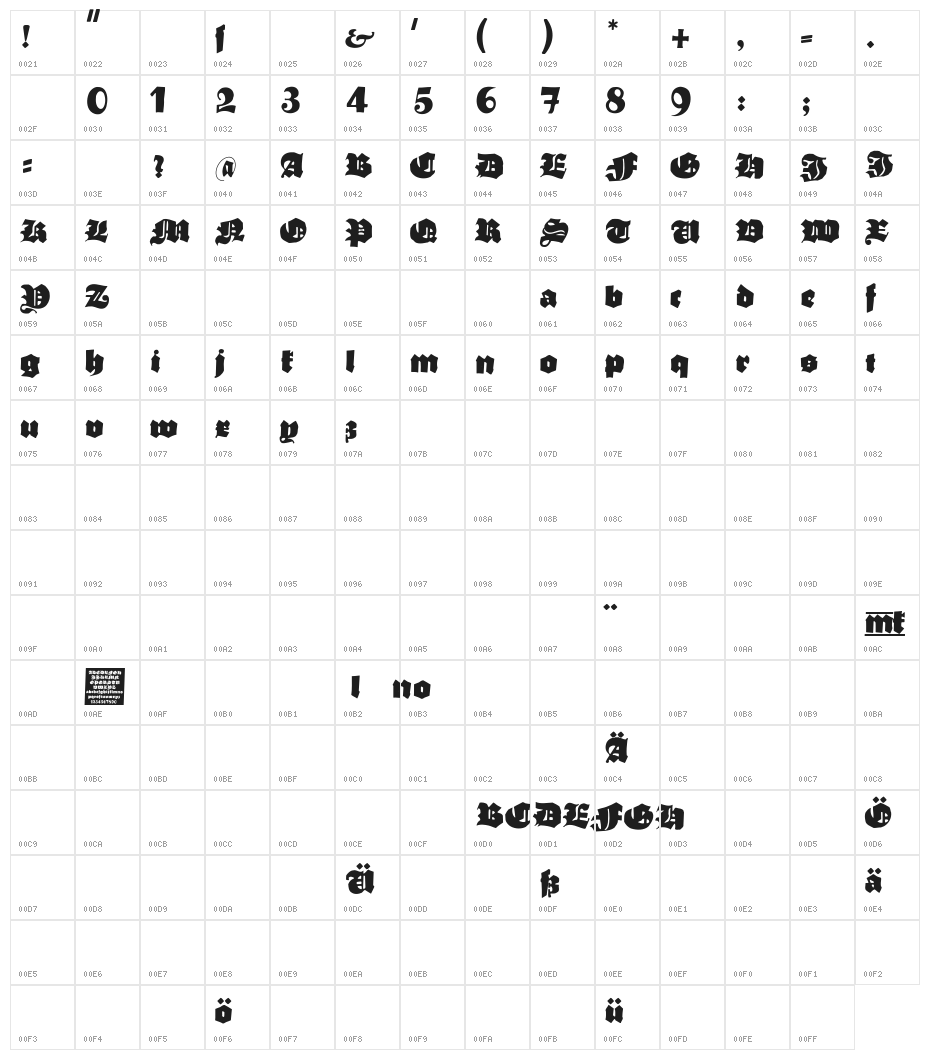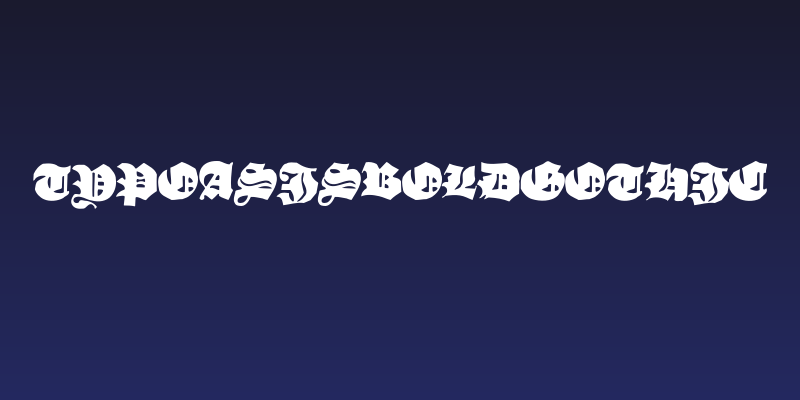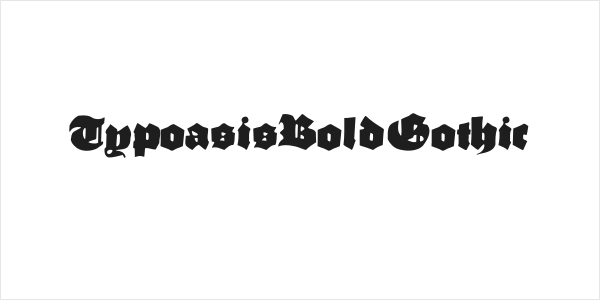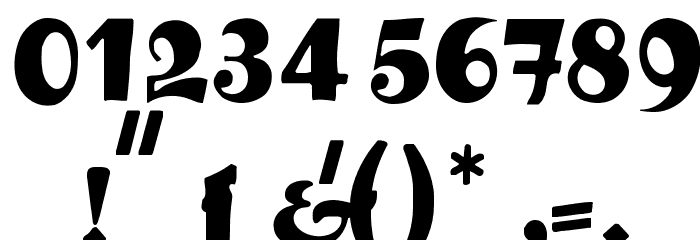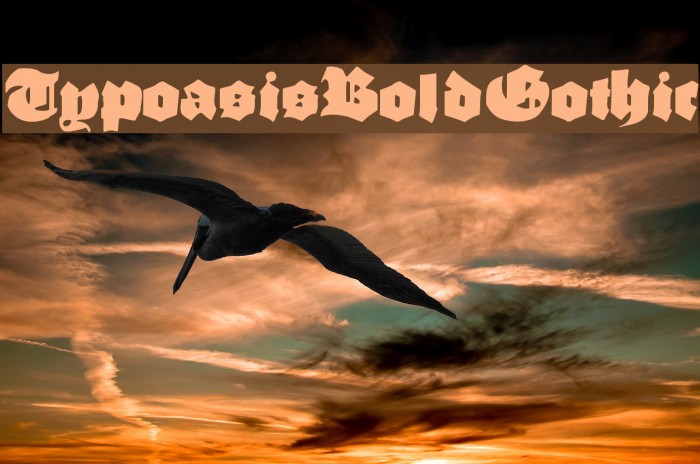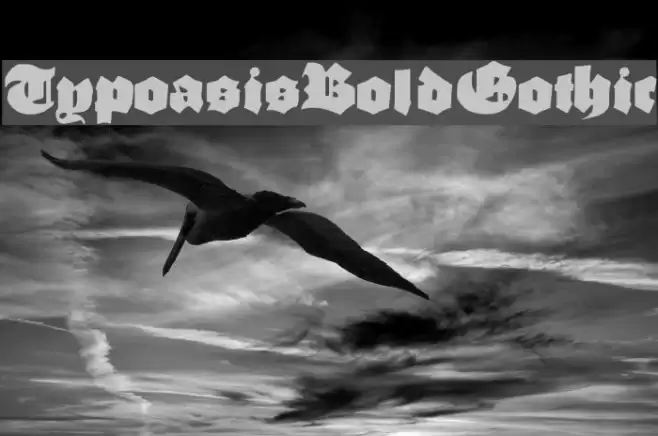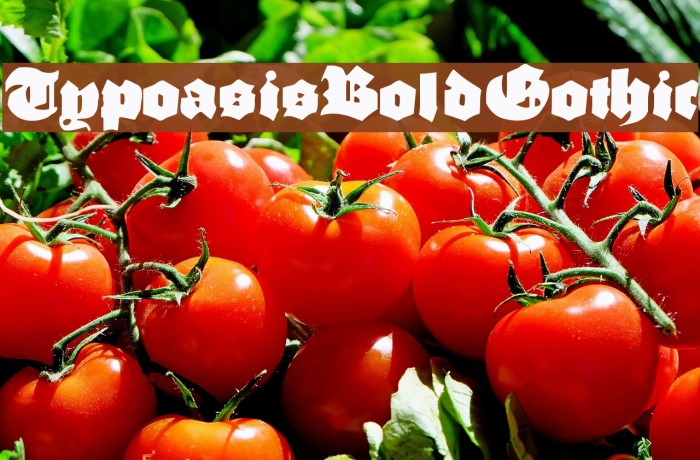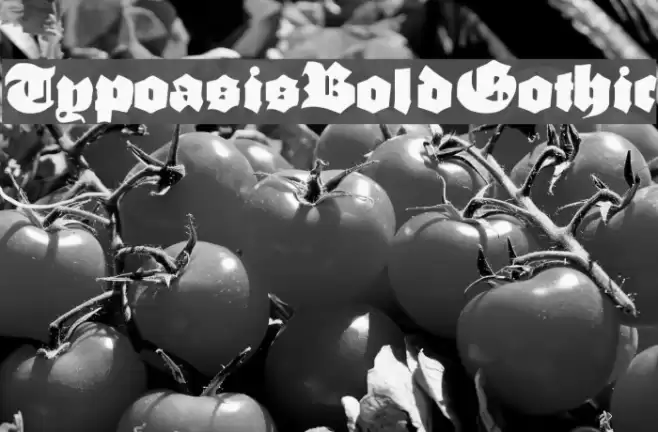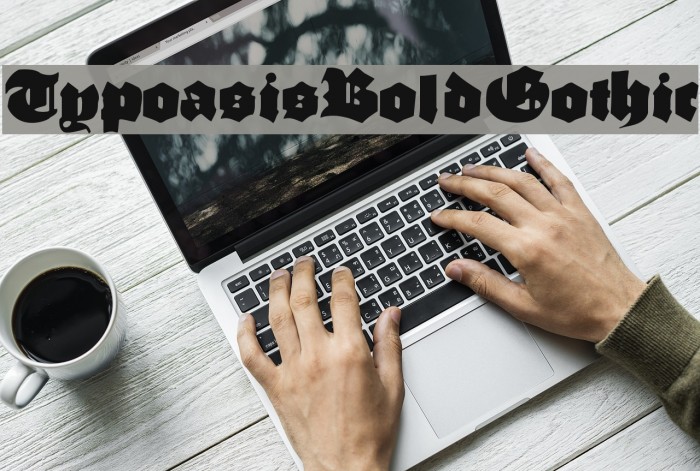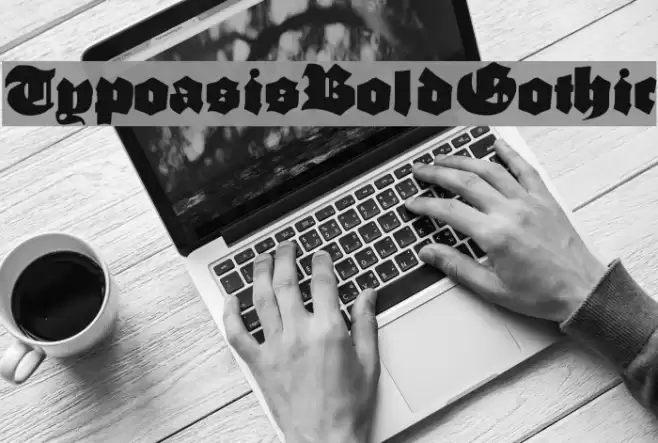
TypoasisBoldGothic Font
✎ Gothic
| Projetos propostos | Ideal for branding, posters, book covers, and any design needing a historical or medieval touch. |